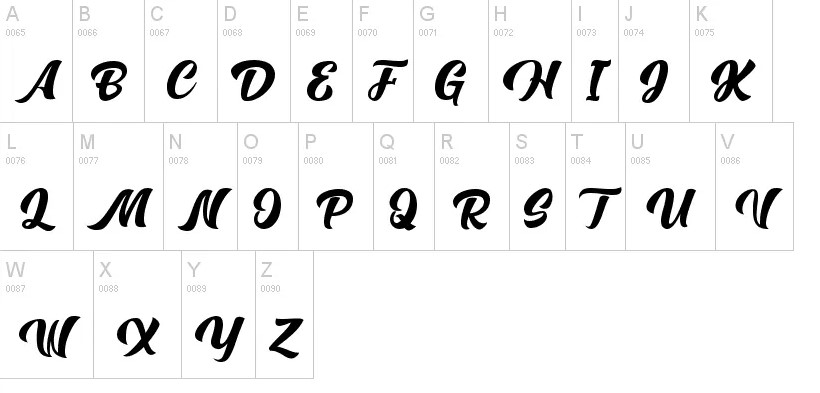
Hello designer, we are excited to introduce Hunters Font today, a fantastic brush and calligraphic typeface created and shared by Lettersiro Studio. This font is available for free for all kinds of projects.
The font contains handy and brushed looks that have heavy strokes with tide width, you can see the cool appearance of this font in the below image that we are providing for you to get an idea about it.
It is easy useable and readable text typeface that can be used in any places in your graphic designs works. The font can be apply anywhere you want.
This typeface that can be used for the pairing use with plantagenet cherokee have catcy look have lots of huge glyphs including uppercase and lowercase letters. Let’s view the picture below to see the sample.